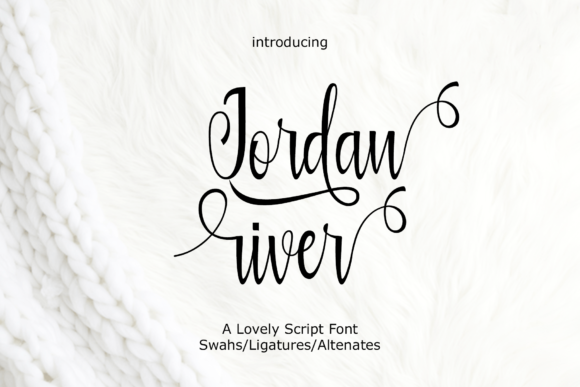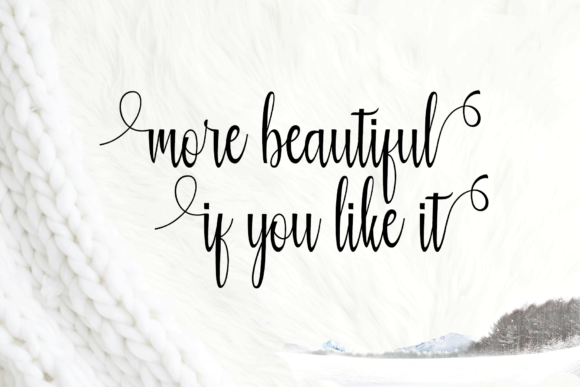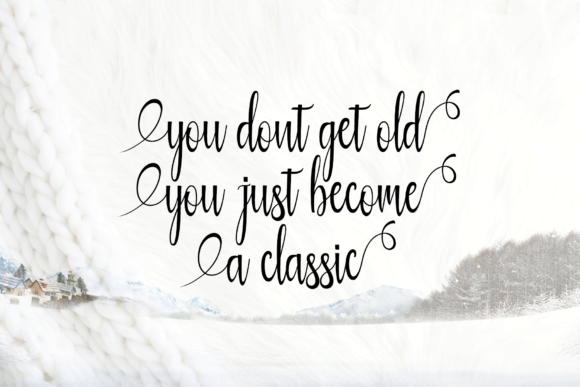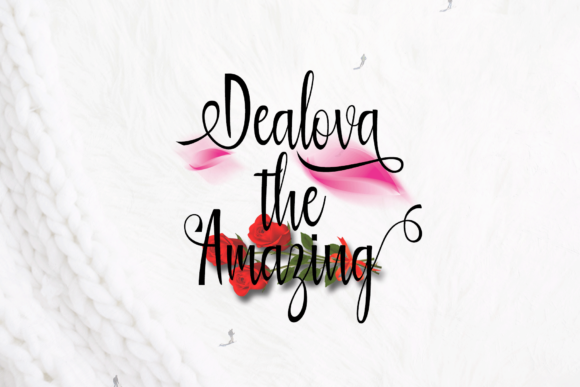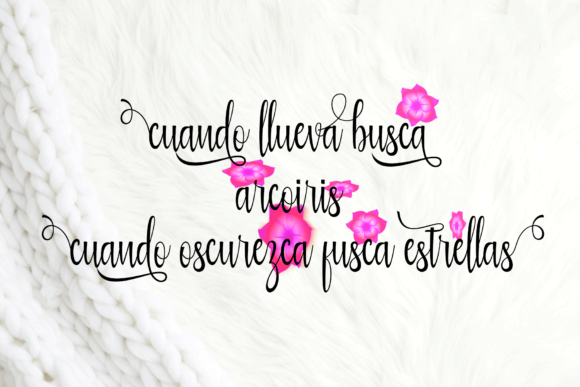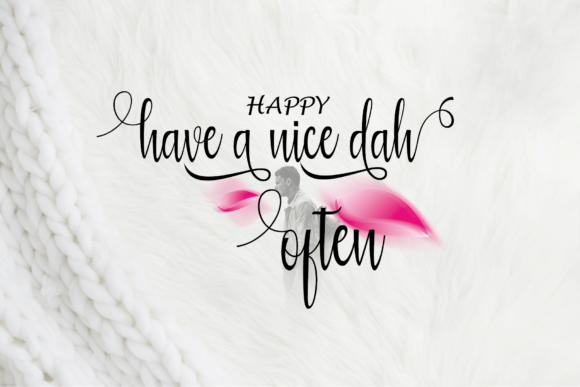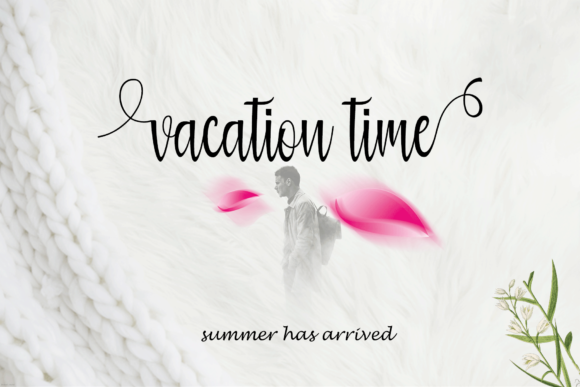
HomeScript FontsJordan River Font Script Fonts Jordan River Font FacebookTwitterPinterestWhatsApp Jordan River Font Poster 2 Jordan River Font Poster 3 Jordan River Font Poster 4 Jordan River Font Poster 5 Jordan River Font Poster 6 Jordan River Font Poster 7 About Jordan River Font Jordan River pays homage to modern calligraphy in a very unexpected and bold way. DOWNLOAD NOW People also explored FT Tantor Fried Bananas Font Wonderful Font Eksellena Font Lawson Weston Font Coffee Break Font Bee Honey Font Tattoo Girl Quick Note Font 146 0 TagsJordan River Font Previous articleWilliam FontNext articleSanliurfa Font LEAVE A REPLY Cancel reply Comment: Please enter your comment! Name:* Please enter your name here Email:* You have entered an incorrect email address! Please enter your email address here Website: Save my name, email, and website in this browser for the next time I comment. Personal Use Free Adelia Font Personal Use Free Read more about this font Awkward Personal Use Free Read more about this font Cretino Personal Use Free Read more about this font Black Jalal Personal Use Free Read more about this font BLOG To increase your work productivity, choose the most readable fonts. In today's fast-paced work environment, where digital communication and information consumption are integral to our daily routines, the choice of fonts can significantly impact... Transform Your Website: Elevate Your Typography with 7 Best Web Font Generators Free vs Paid Fonts: Why Investing in Premium Fonts Is Worth It Exploring Font Trends